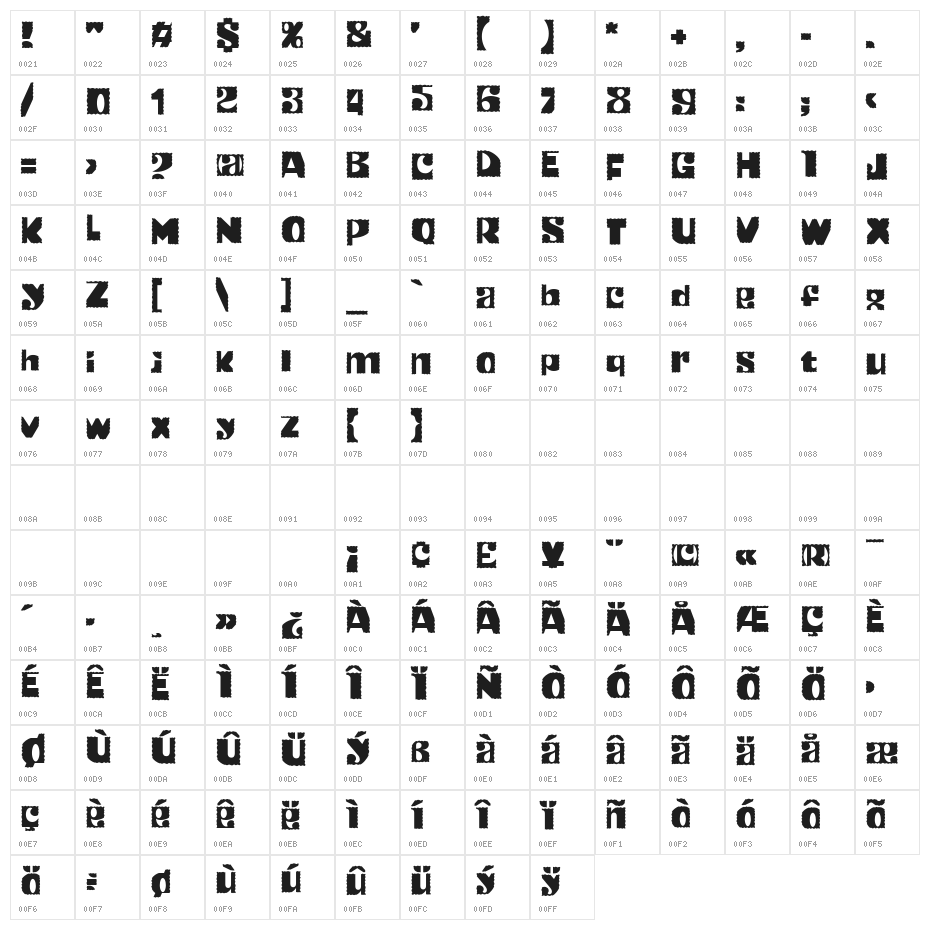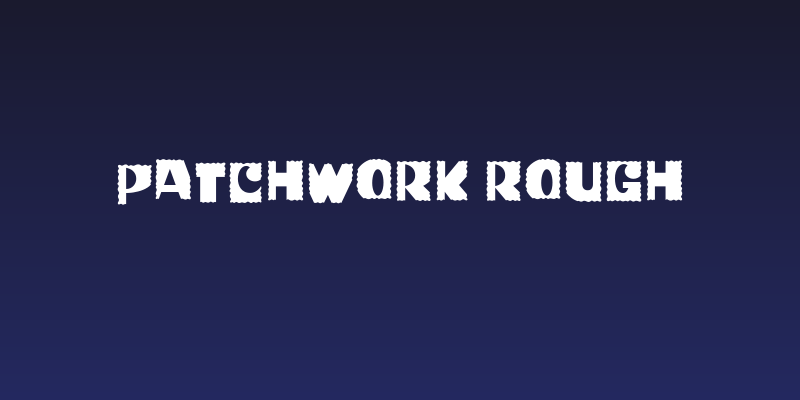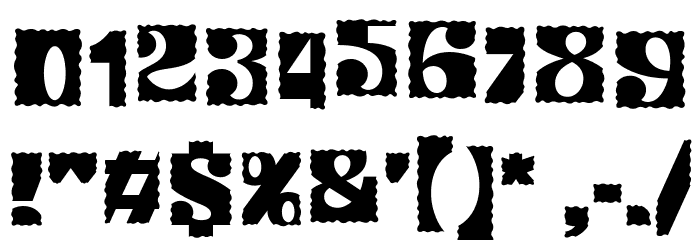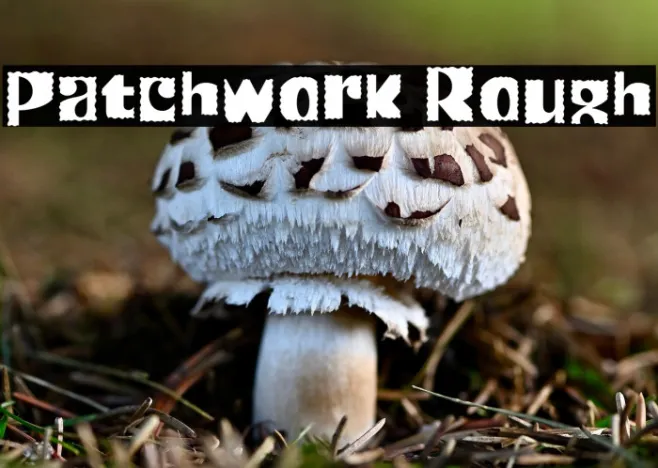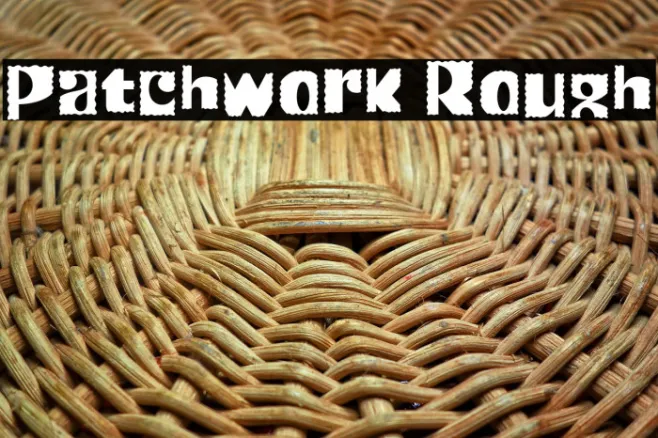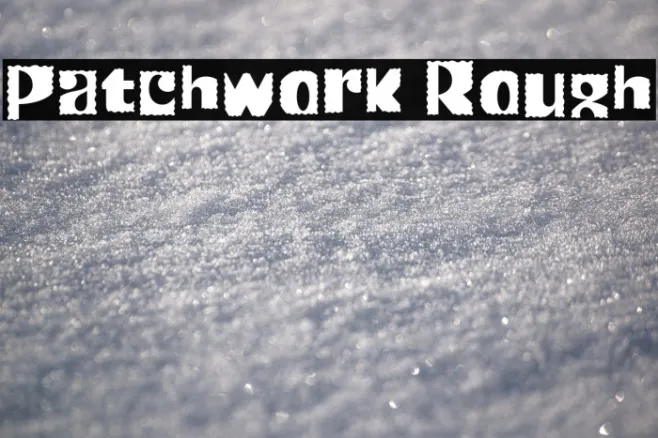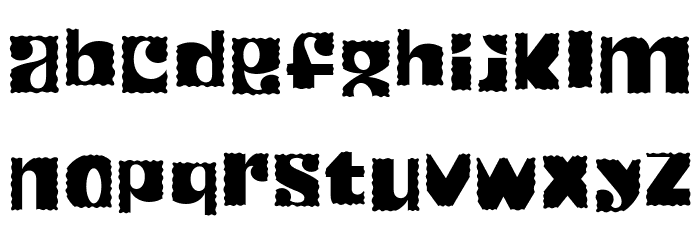
Patchwork Rough Font
Patchwork Rough Description
This font features a bold and rugged design, characterized by its jagged edges and patchwork-like appearance. The letters are constructed with a rough, textured style that gives them a handcrafted, artisanal feel. Each character is distinct, with irregular contours that suggest a sense of movement and dynamism. The uppercase and lowercase letters maintain a consistent visual theme, while the numbers and special characters complement the overall aesthetic. This font is ideal for projects that require a unique and eye-catching display, offering a creative twist on traditional typography.
| Proposed Projects | Ideal for posters, album covers, branding, and any project needing a bold, artistic touch. |